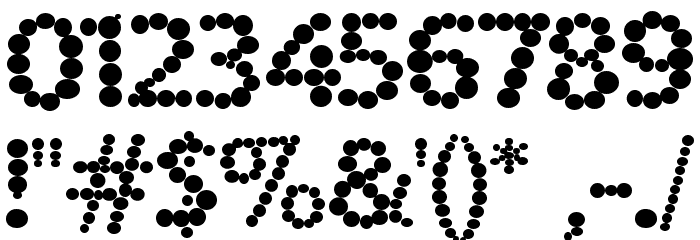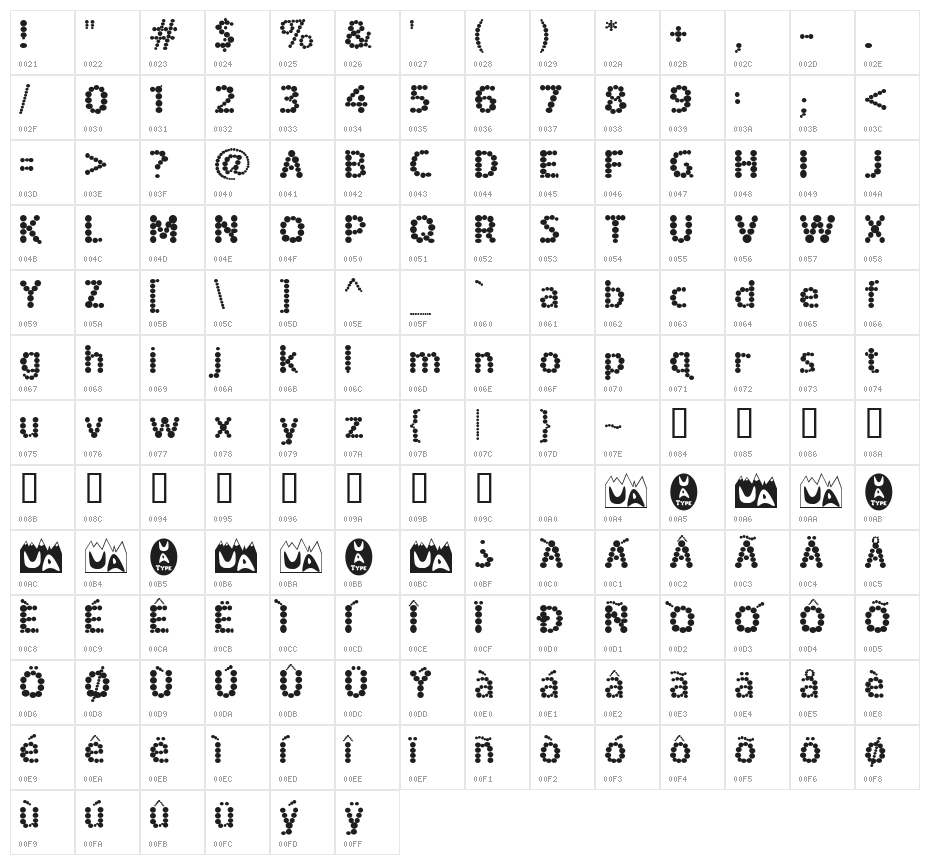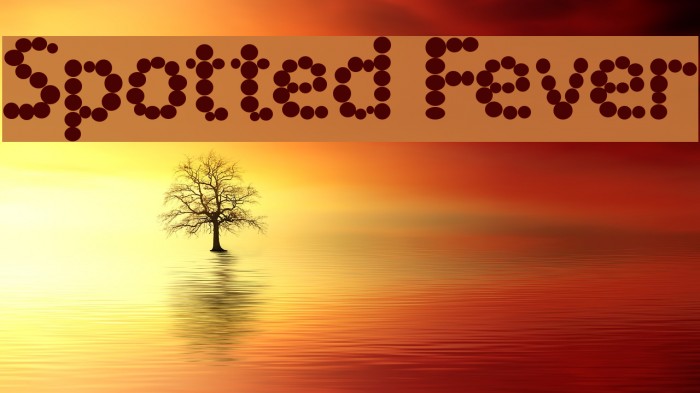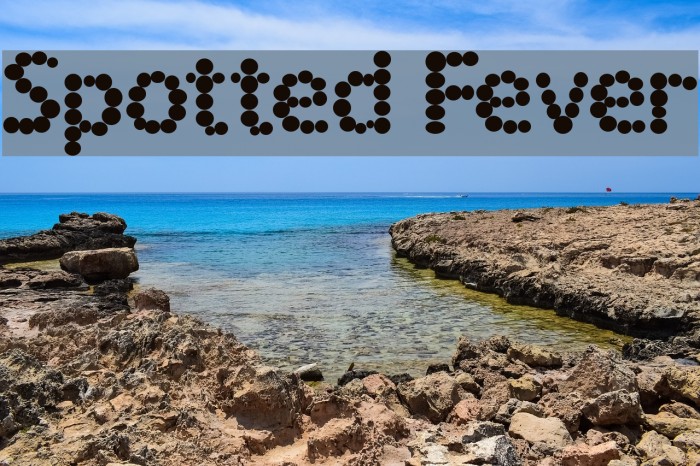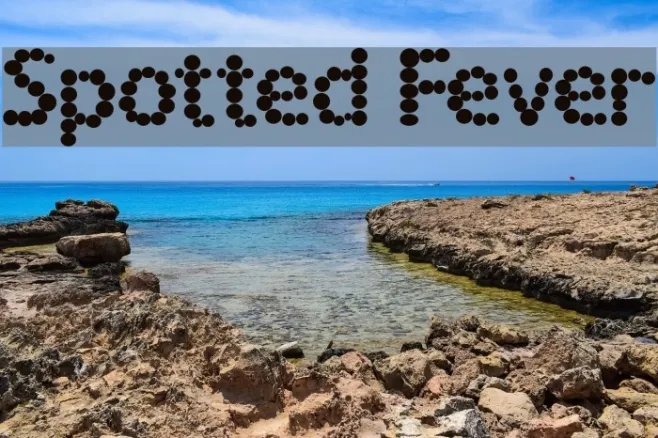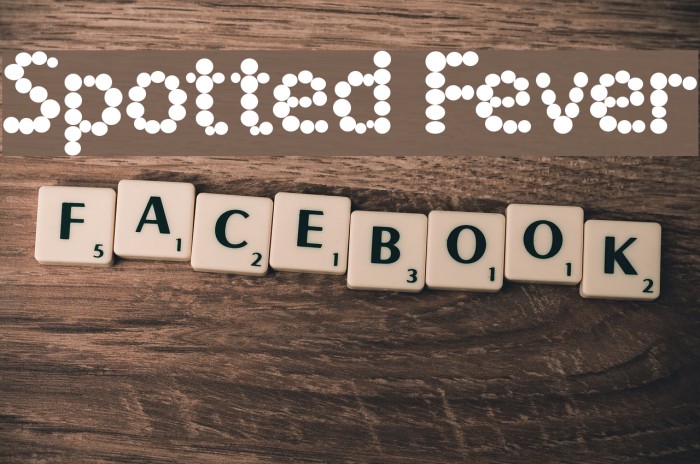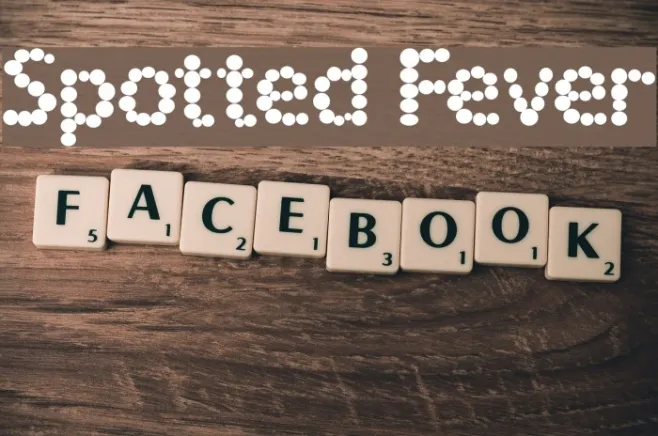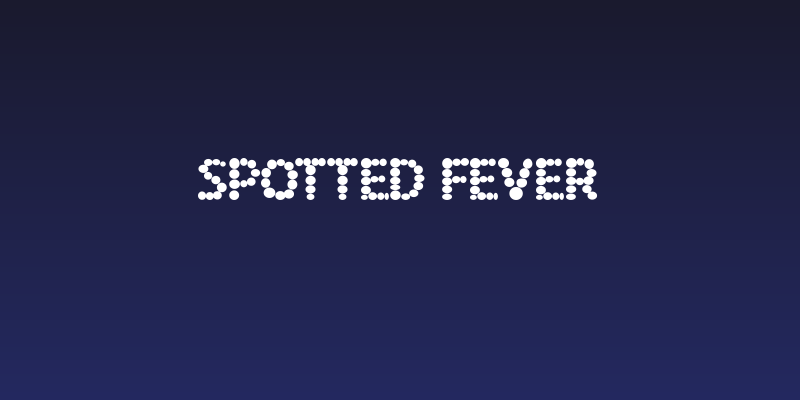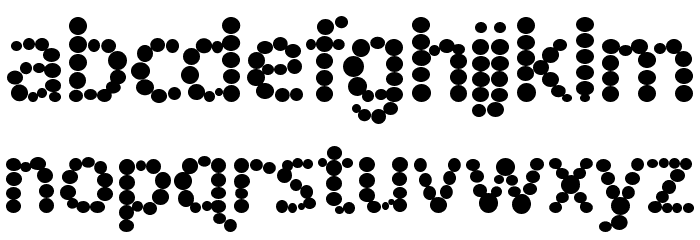
Spotted Fever Font
This font features a unique design composed entirely of dots, creating a playful and visually striking appearance. Each character is formed by a series of evenly spaced circular dots, giving it a pixelated yet cohesive look. The font maintains a consistent structure across uppercase, lowercase, numerals, and special characters, ensuring readability despite its unconventional style. The dotted pattern adds a sense of movement and texture, making it ideal for creative and modern design projects. Its distinct style can capture attention and convey a sense of fun and innovation.
| Proposed Projects | Ideal for posters, children's books, playful branding, and modern digital designs. |